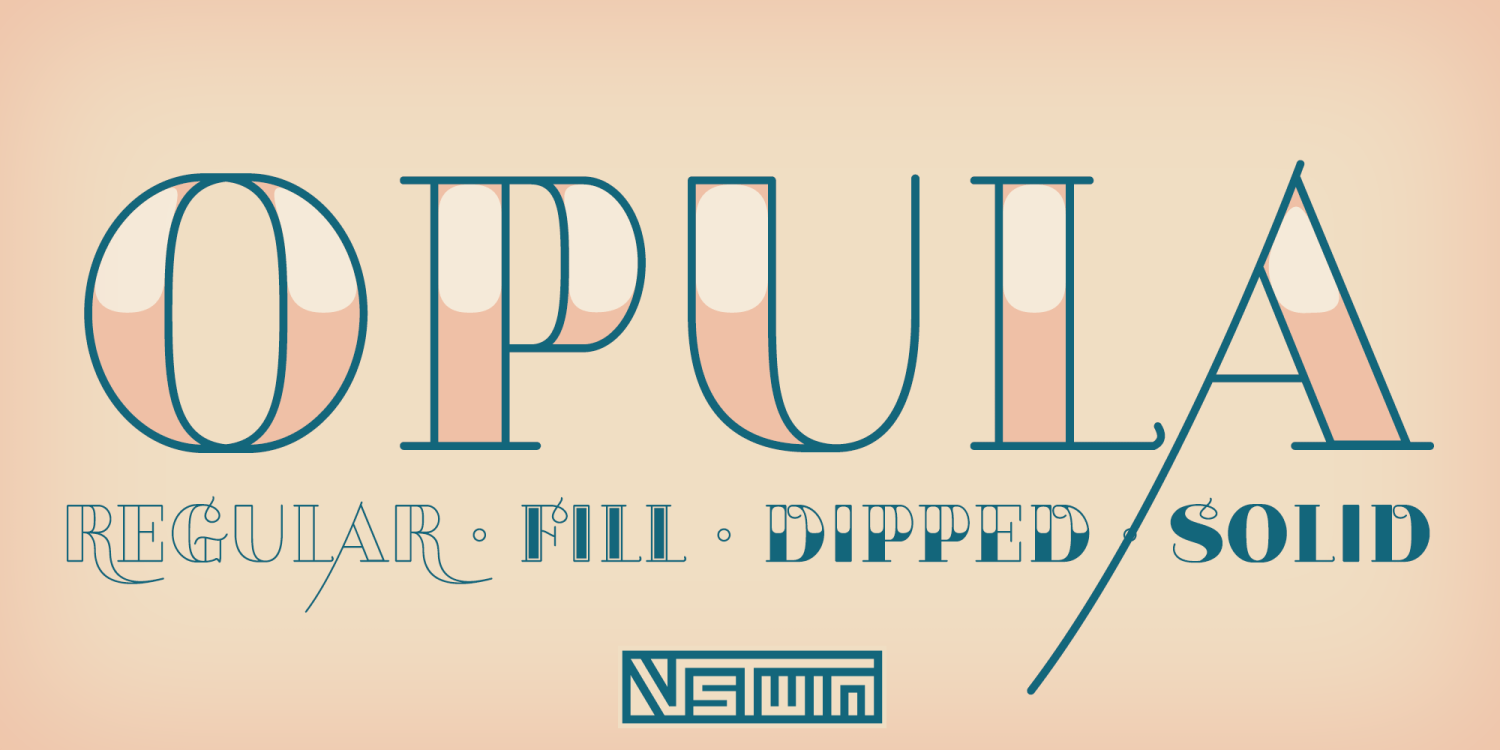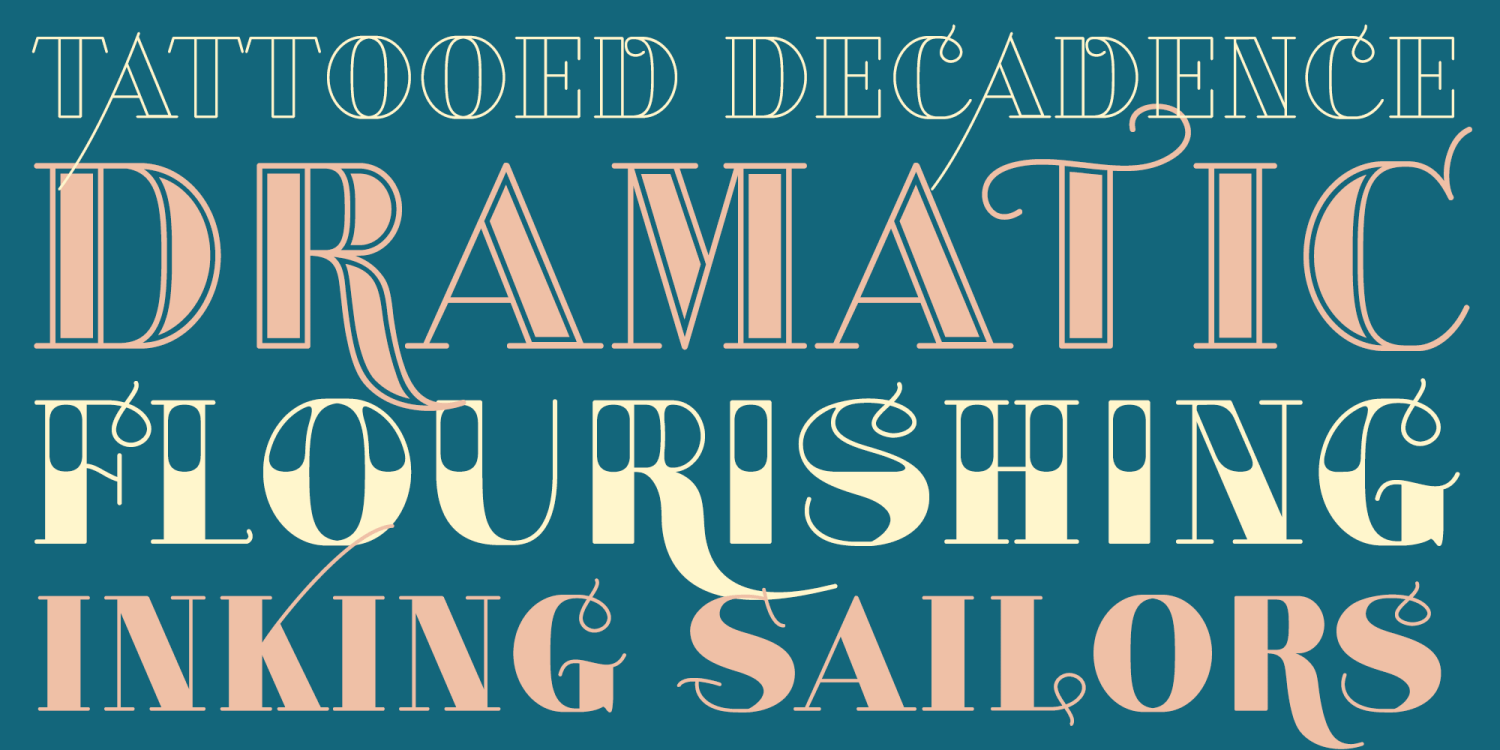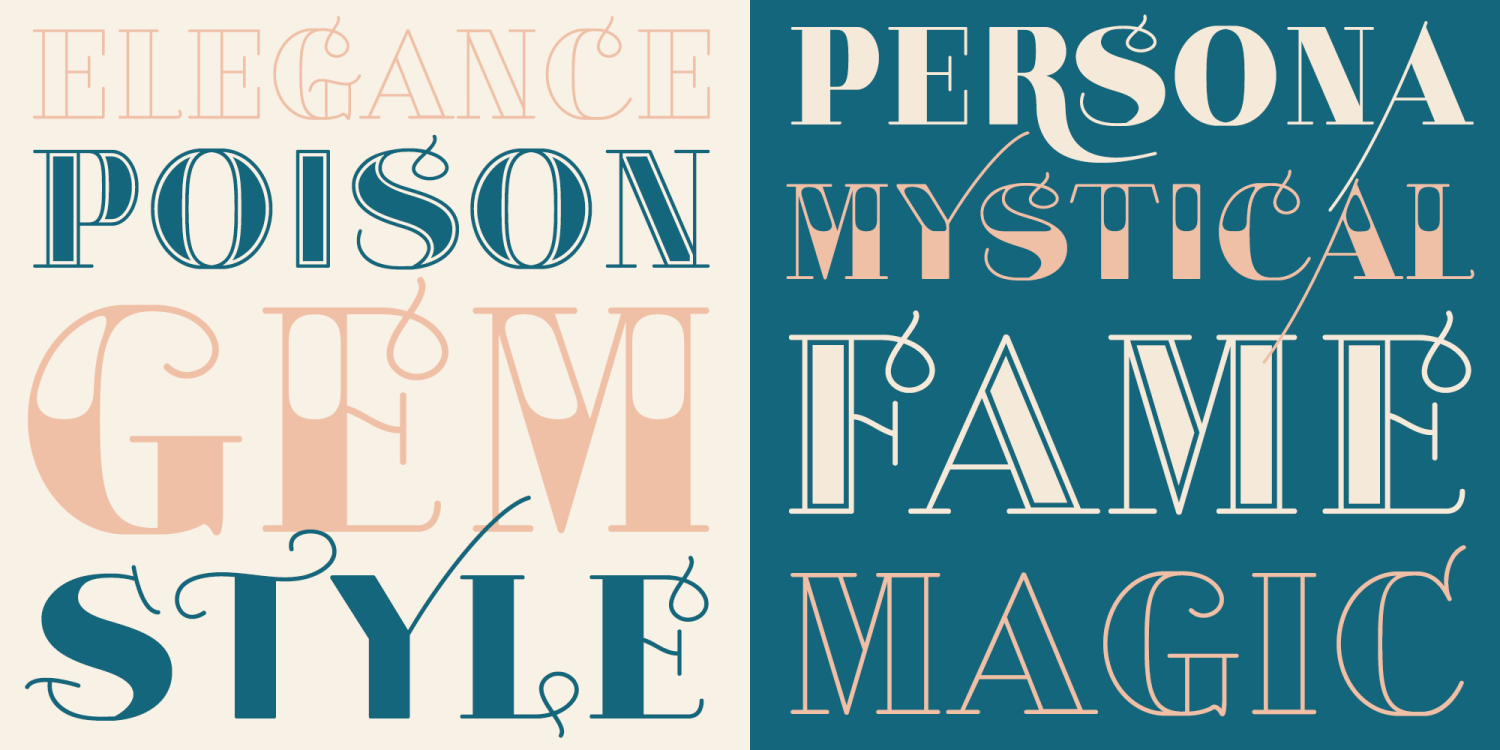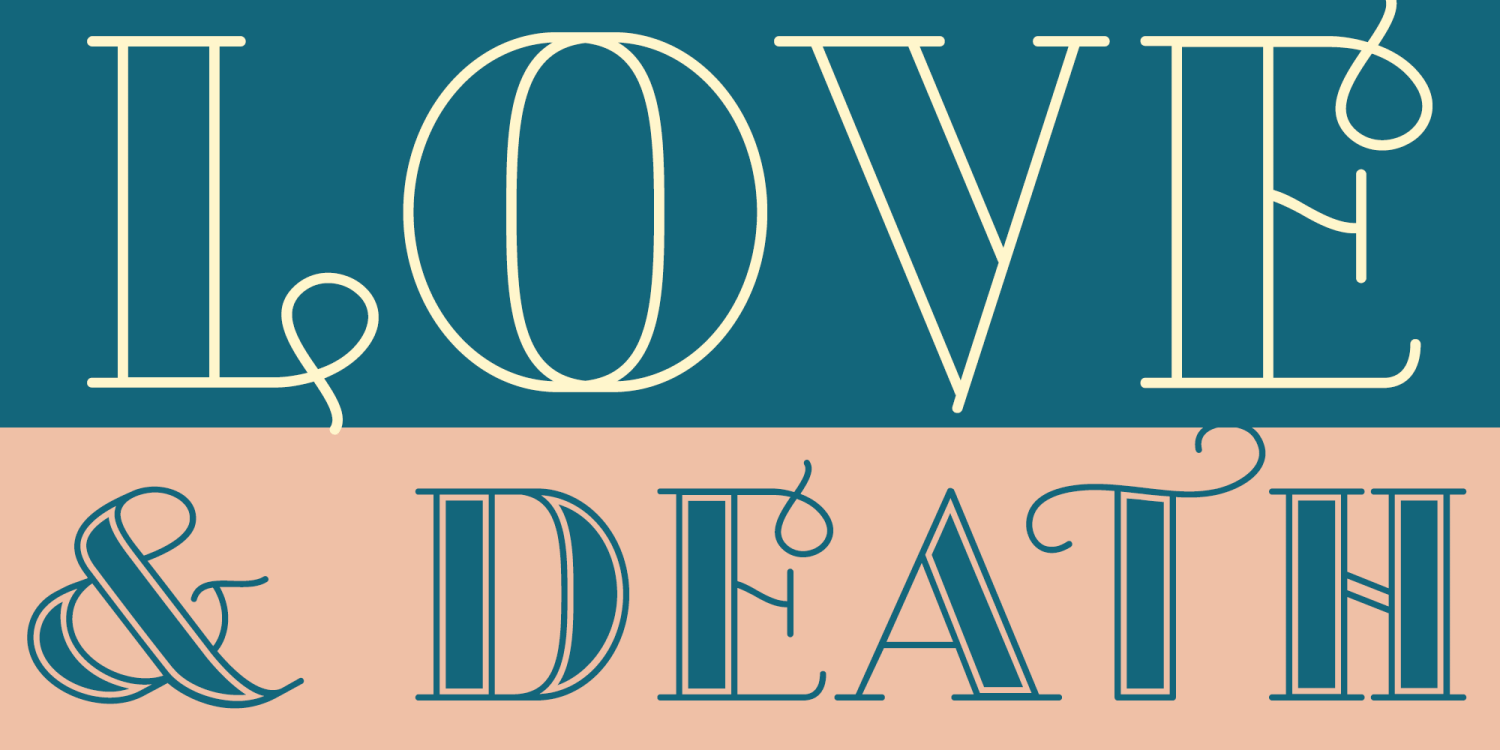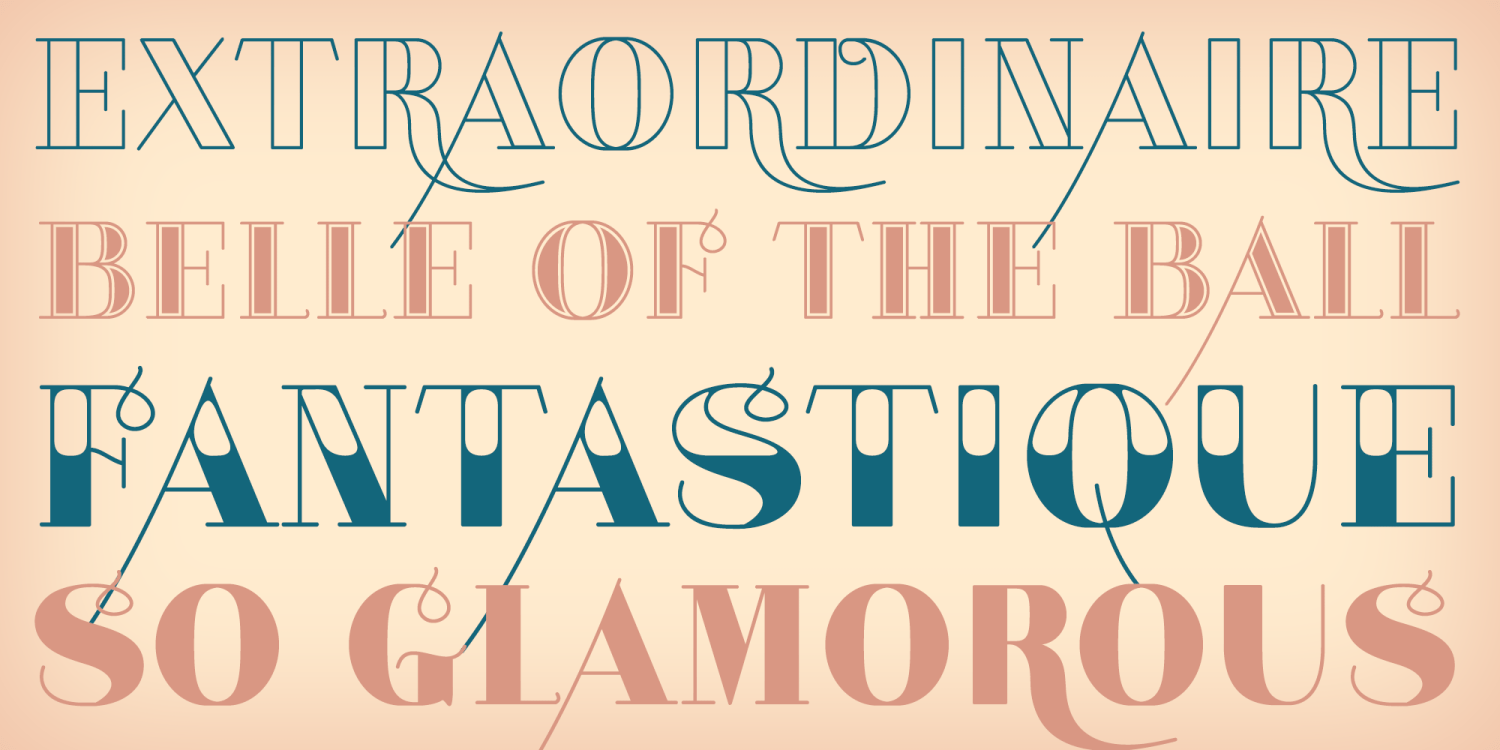
Opula
Font Family by VersusTwin
Opula is a bold display family with roots in classic tattoo lettering, sign painting, and stylized custom typography. Its letterforms carry a strong hand-drawn feel with confident curves, pointed details, and a graphic presence that makes it especially effective for logos, headlines, posters, packaging, and brand work that needs personality and impact. Rather than functioning as a single-style novelty, Opula expands into a versatile display system with companion variations that can be used independently or layered together for more dimensional typographic treatments. With its mix of vintage-inspired attitude and polished modern structure, Opula is well suited for identity design, apparel, music graphics, beverage packaging, editorial titling, and other projects that benefit from bold decorative lettering with flexible display options.